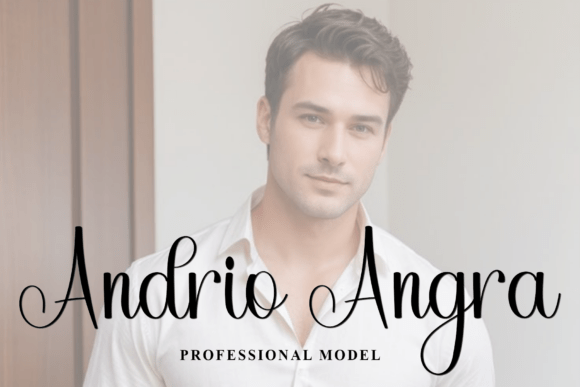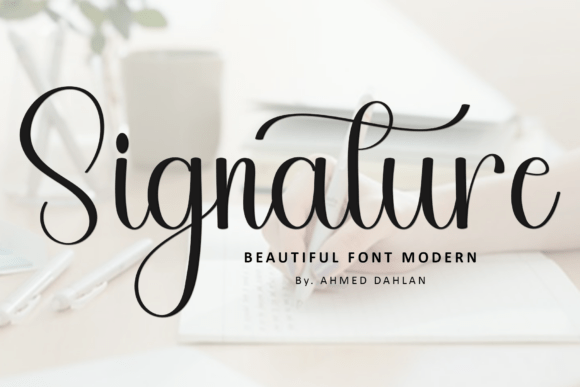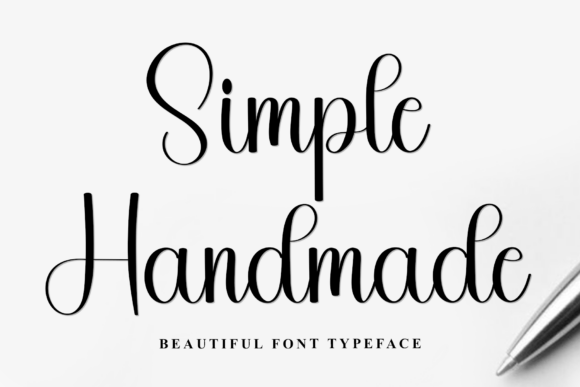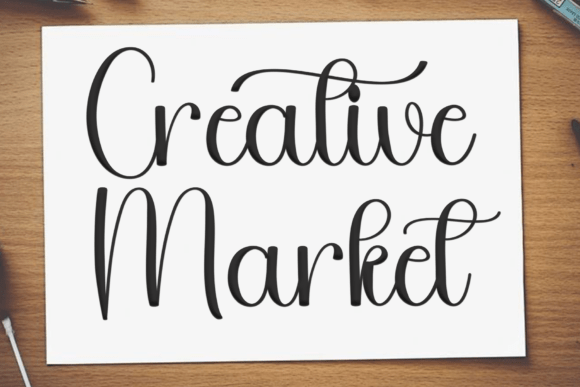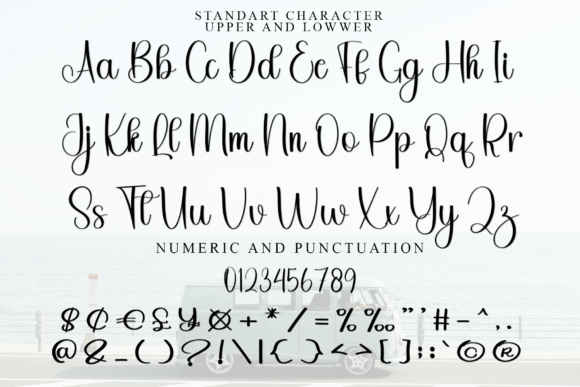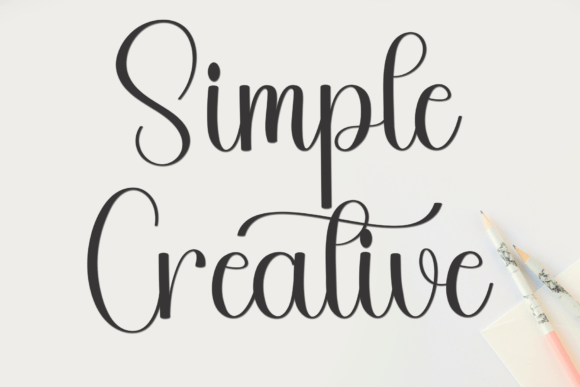
Introduction to Monday Sometime Font
Have you ever found yourself staring at a blank page, trying to come up with the perfect design for a creative project? The words won’t flow, and your imagination seems to be stuck in neutral. But then, something magical happens – you stumble upon the perfect font, and suddenly your ideas start to take shape. For designers, finding the right font can be a game-changer, and that’s exactly what the Monday Sometime Font can offer.
This modern handwritten script font is a breath of fresh air, blending elegant curves with a touch of casual charm. With its flowing strokes and stylish swashes, Monday Sometime Font adds a handwritten touch that feels both polished and heartfelt, making it perfect for planners, invitations, personal branding, and social media graphics. Whether you’re looking for a high-quality design resource or a free download to spice up your next project, Monday Sometime Font is definitely worth exploring.
Key Features of Monday Sometime Font
- High-quality design resource with a unique, creative aesthetic perfect for various projects.
- Features a transparent background, making it easy to use with various design elements.
- Includes a range of characters, including uppercase and lowercase letters, numbers, and special symbols.
- Designed with a high resolution, ensuring crisp and clear text even at larger sizes.
- Perfect for use in creative projects, such as graphic design, digital art, and typography-based designs.
- Can be easily resized and manipulated without losing its unique character and quality.
Honest Review: Monday Sometime Font
I recently came across the Monday Sometime Font, a free download that caught my attention with its unique design. As a designer, I appreciate high-quality design resources that can elevate my creative projects. The Monday Sometime Font does not disappoint.
- ✨ Unique Design: The font’s quirky, handwritten feel is perfect for adding a personal touch to your designs.
- ✨ Transparency: The transparent background makes it easy to layer the font over images or other design elements.
- ✨ Customizability: The font’s versatility allows for endless possibilities in terms of color and style combinations.
However, I did encounter a few limitations while working with the Monday Sometime Font:
- ⚠️ Limited Character Set: The font’s character set is somewhat limited, which may make it difficult to use for longer pieces of text.
- ⚠️ Not Ideal for Small Text: The font’s size and style can make it difficult to read when used for small text or body copy.
Overall, I’m impressed with the Monday Sometime Font, but it’s essential to consider its limitations before incorporating it into your design projects. With a little creativity and experimentation, this font can be a valuable addition to your design arsenal.
Monday Sometime Font
The Monday Sometime Font is a high-quality design resource perfect for creative projects. This free download is ideal for designers and non-designers alike, offering a unique and stylish touch to any project.
Getting the Most Out of Monday Sometime Font
To get the most out of Monday Sometime Font, use it with a transparent background to create a clean and minimalist design. Experiment with different font sizes and combinations to add visual interest to your project.
The Monday Sometime Font is perfect for: